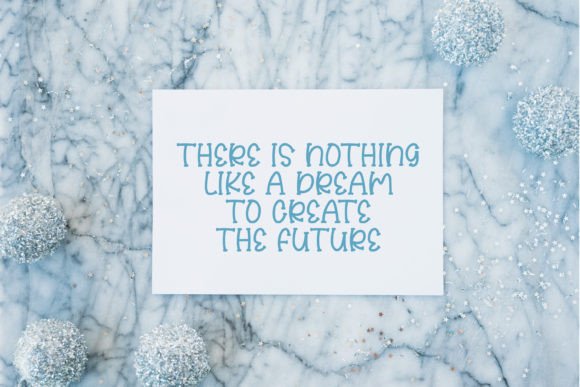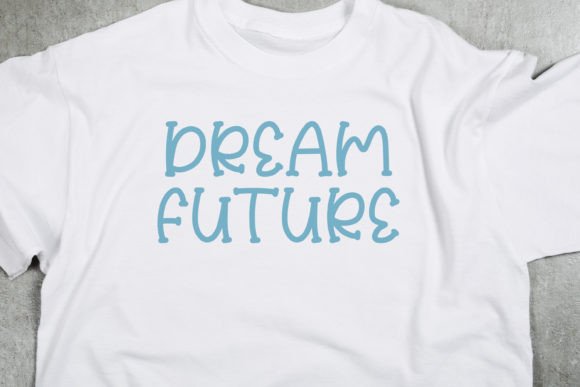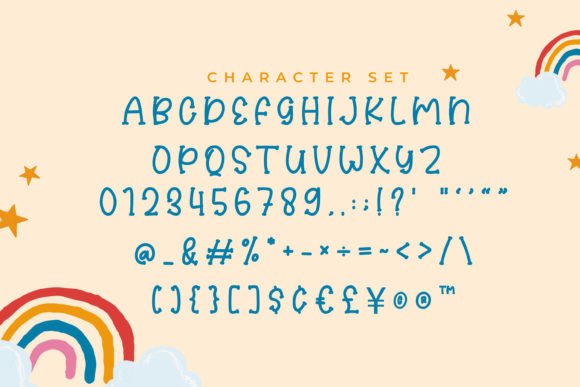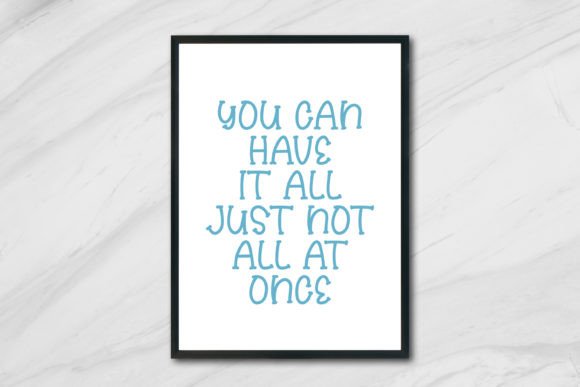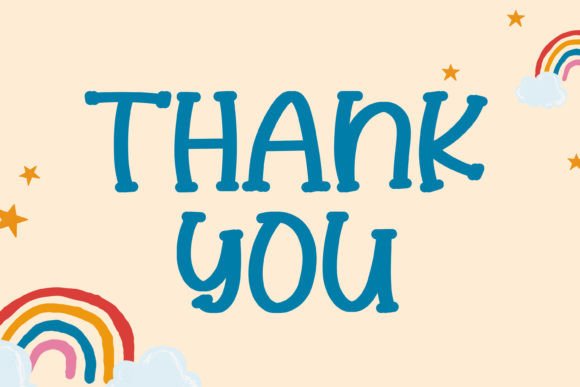
Borges Font: The Playful and Colorful Display Font for Kids’ Designs
Are you looking for a font that can add a touch of playfulness and authenticity to your designs, especially for kids’ activities and school projects? Look no further than the Borges Font! This cute and colorful display font is perfect for designers and crafters who want to create engaging and fun designs for children.
What is Borges Font?
Borges Font is a chunky lettered font that embodies playfulness and authenticity. Its unique and colorful design makes it stand out from other fonts, and its friendly appearance is sure to delight kids and adults alike. Whether you’re creating materials for a school project, designing activity sheets for kids, or crafting fun and engaging social media content, Borges Font is the perfect choice.
Characteristics of Borges Font
So, what makes Borges Font so special? Here are some of its key characteristics:
- Playful and Colorful: Borges Font is a vibrant and playful font that is sure to grab attention. Its bright colors and chunky lettering make it perfect for designs that need to stand out.
- Authentic: This font has a genuine and authentic feel to it, making it perfect for designs that need to connect with kids and adults alike.
- Chunky Lettering: The bold and chunky lettering of Borges Font makes it easy to read and fun to look at.
- Versatile: Borges Font can be used for a wide range of designs, from posters and flyers to social media graphics and activity sheets.
Uses for Borges Font
So, what can you use Borges Font for? Here are some ideas to get you started:
- Kids’ Activity Sheets: Add Borges Font to your kids’ activity sheets, such as coloring pages, word searches, and puzzles, to make them more engaging and fun.
- School Projects: Use Borges Font for school projects, such as posters, presentations, and reports, to add a touch of personality and creativity.
- Social Media Graphics: Add Borges Font to your social media graphics, such as Facebook posts, Instagram stories, and Twitter headers, to make them more visually appealing and engaging.
- Posters and Flyers: Use Borges Font for posters and flyers, such as event promotions, advertisements, and announcements, to grab attention and stand out.
Tips for Using Borges Font
Here are some tips for using Borges Font effectively:
- Use it sparingly: While Borges Font is fun and playful, it can be overwhelming if used too much. Use it sparingly to add emphasis and personality to your designs.
- Pair it with other fonts: Borges Font pairs well with other fonts, such as serif and sans-serif fonts. Experiment with different font combinations to find the perfect look for your design.
- Experiment with colors: Borges Font comes in a range of colors, so don’t be afraid to experiment and find the perfect color scheme for your design.
In conclusion, Borges Font is a playful and colorful display font that is perfect for kids’ designs, school projects, and fun and engaging social media content. Its chunky lettering, authentic feel, and versatile design make it a great choice for designers and crafters who want to add a touch of personality to their designs. So why not give Borges Font a try and see how it can bring your designs to life?
With its unique and colorful design, Borges Font is sure to delight kids and adults alike. Whether you’re a designer, crafter, or educator, Borges Font is a great addition to your font collection. So go ahead, get creative, and have fun with Borges Font!